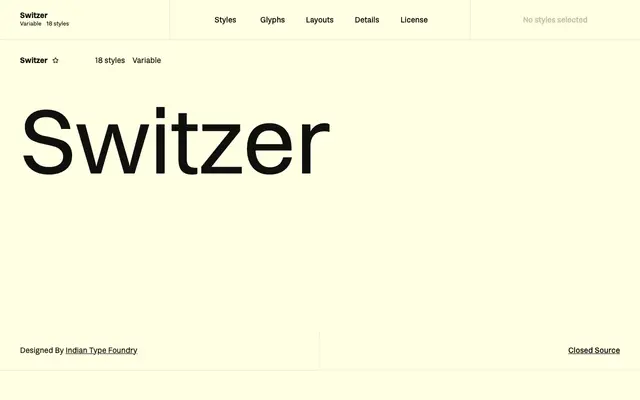
Switzer
A neo-grotesque Latin-script sans from Indian Type Foundry, offered in nine weights with matching italics and variable font support.
Released on Fontshare in April 2021, Switzer follows the neo-grotesque tradition associated with Swiss type design, presenting a clean and considered alternative to the established names in that genre. The family spans nine weights from Thin to Black, each with a matching italic, and includes variable font files covering the full weight axis. With support for 135 languages across Latin-extended scripts, it is well suited to multilingual editorial, branding and screen work.
The foundry explicitly describes Switzer as a neo-grotesque design, following the tradition of Swiss-influenced grotesques with a classic, timeless appearance.